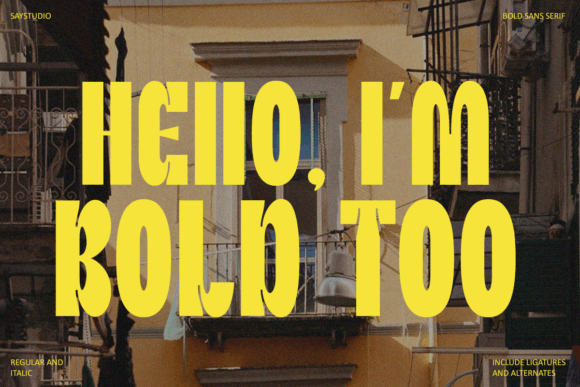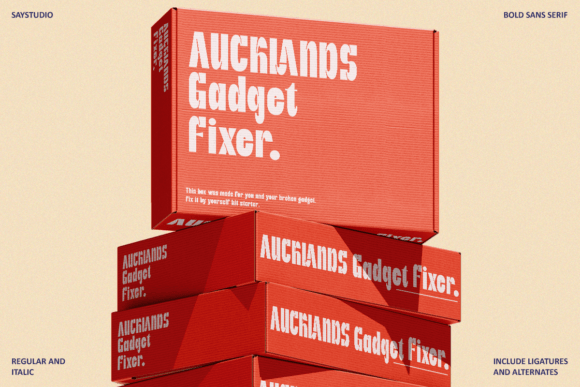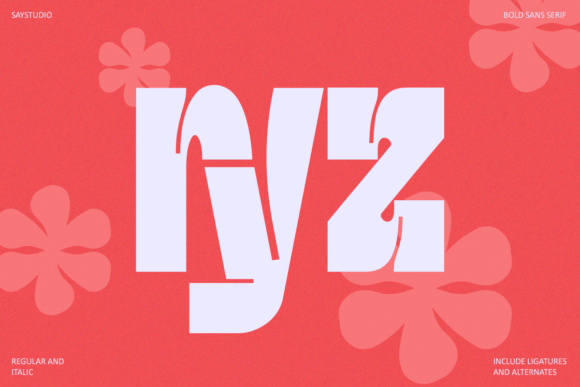
Introduction to Karuna Font
Karuna, my super bold sans serif, isn’t messing around.
Its sharp angles and commanding presence demand attention With a modern, urban edge, it’s ideal for cutting-edge branding, eye-catching headlines, and impactful social media graphics.
Karuna Font offers exceptional quality and versatility, making it a valuable addition to your design toolkit. Whether you’re creating for personal projects or commercial use, Karuna Font delivers professional results.